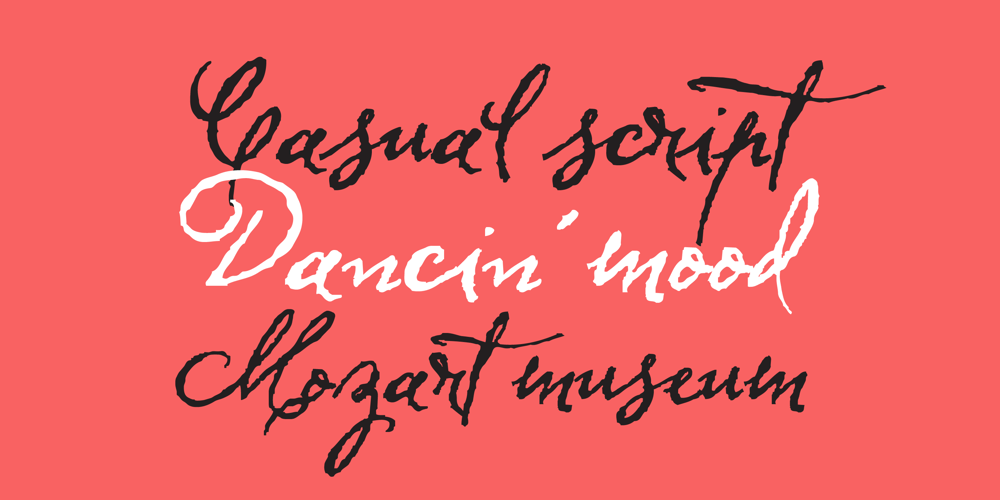
Herencia
Herencia font
Herencia Font Family was designed by Alejandro Paul, Diego Giaccone and published by Sudtipos. Herencia contains 1 styles and family package options. A script designed by Diego Giaccone and digitized by Alejandro Paul. A beautiful and sophisticated rough calligraphy for in packaging, cards, etc.